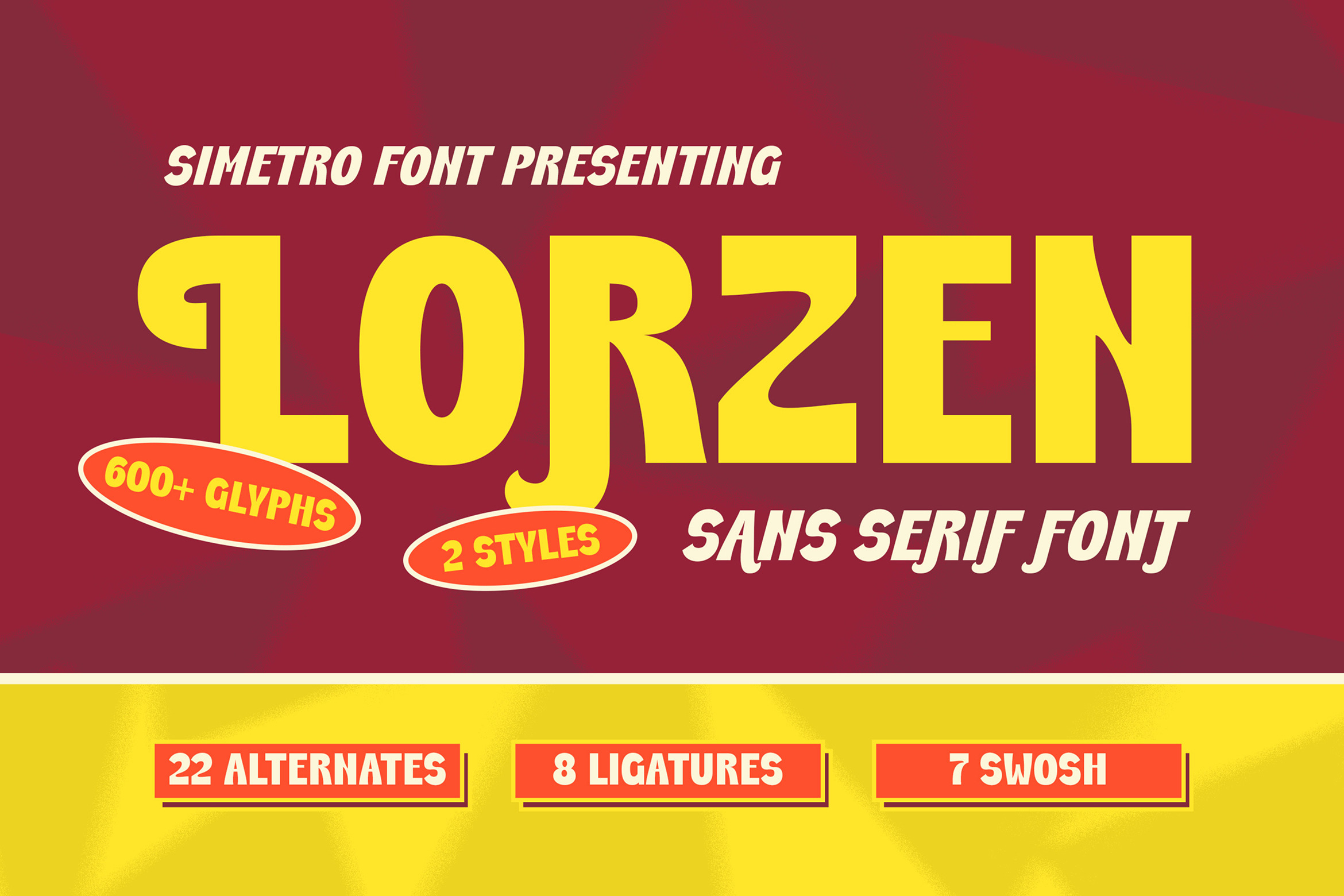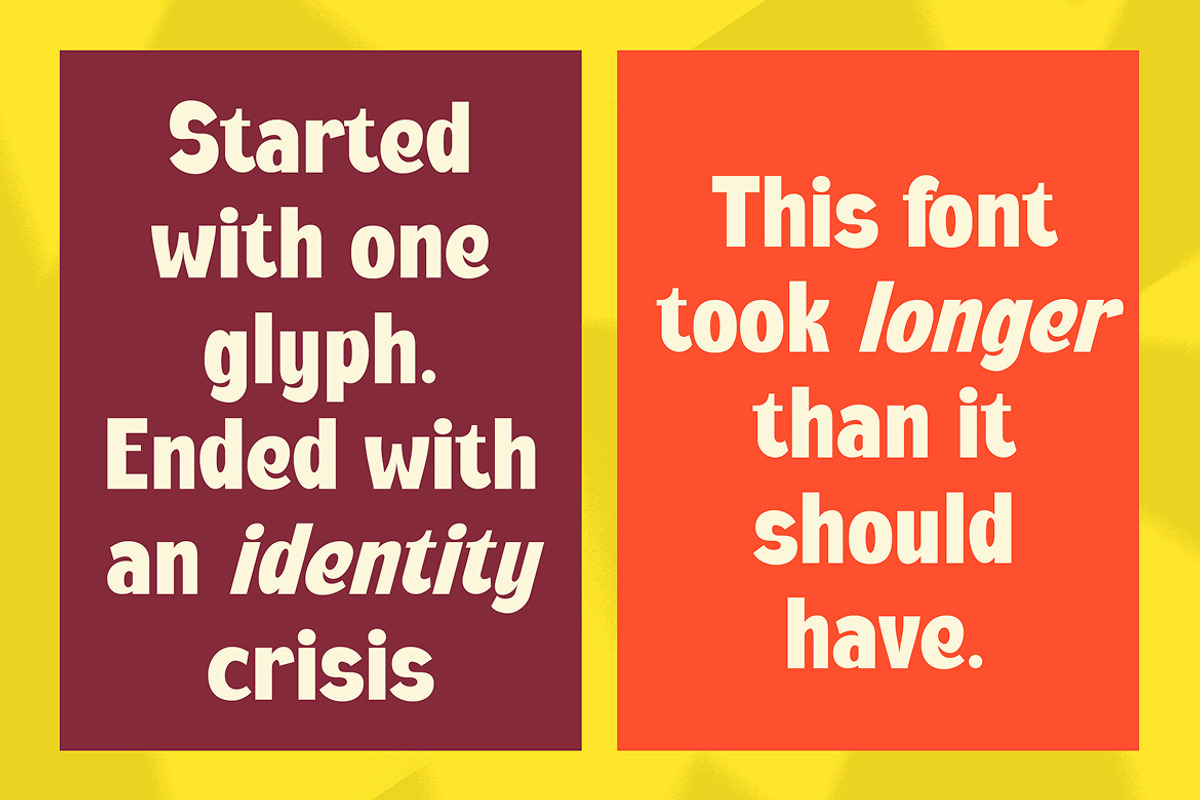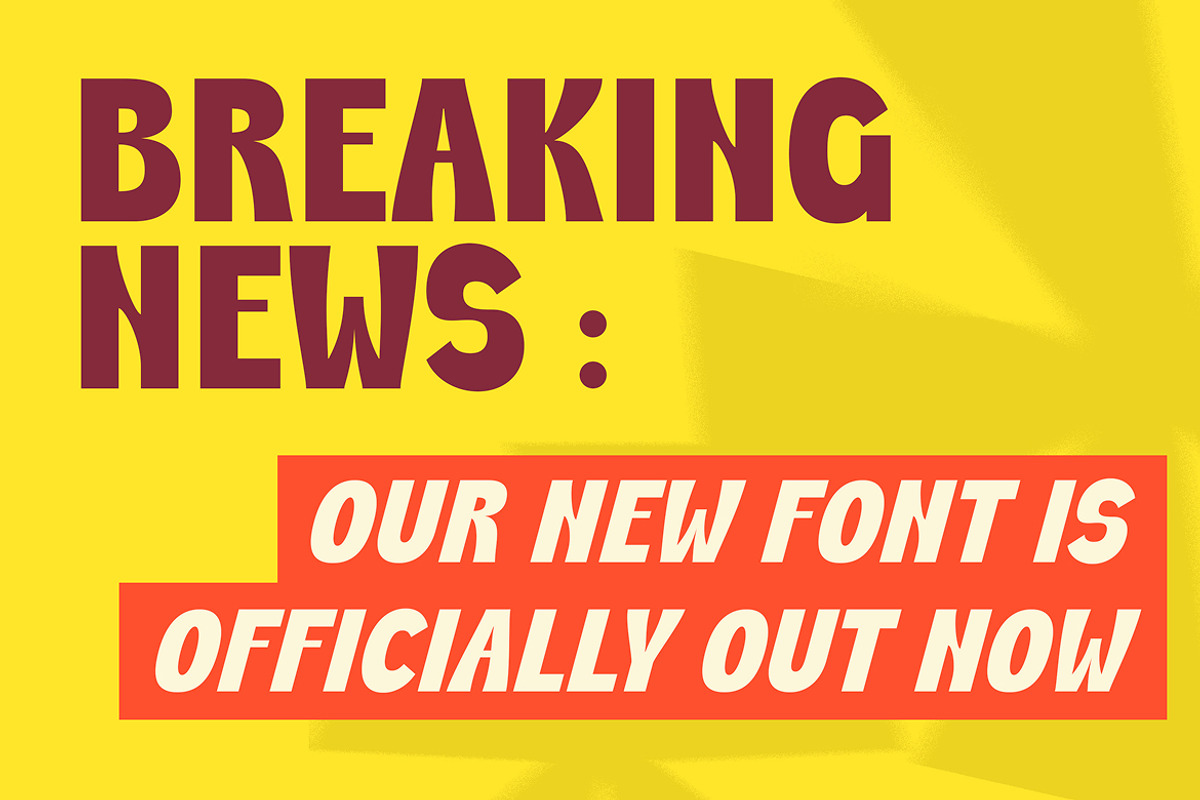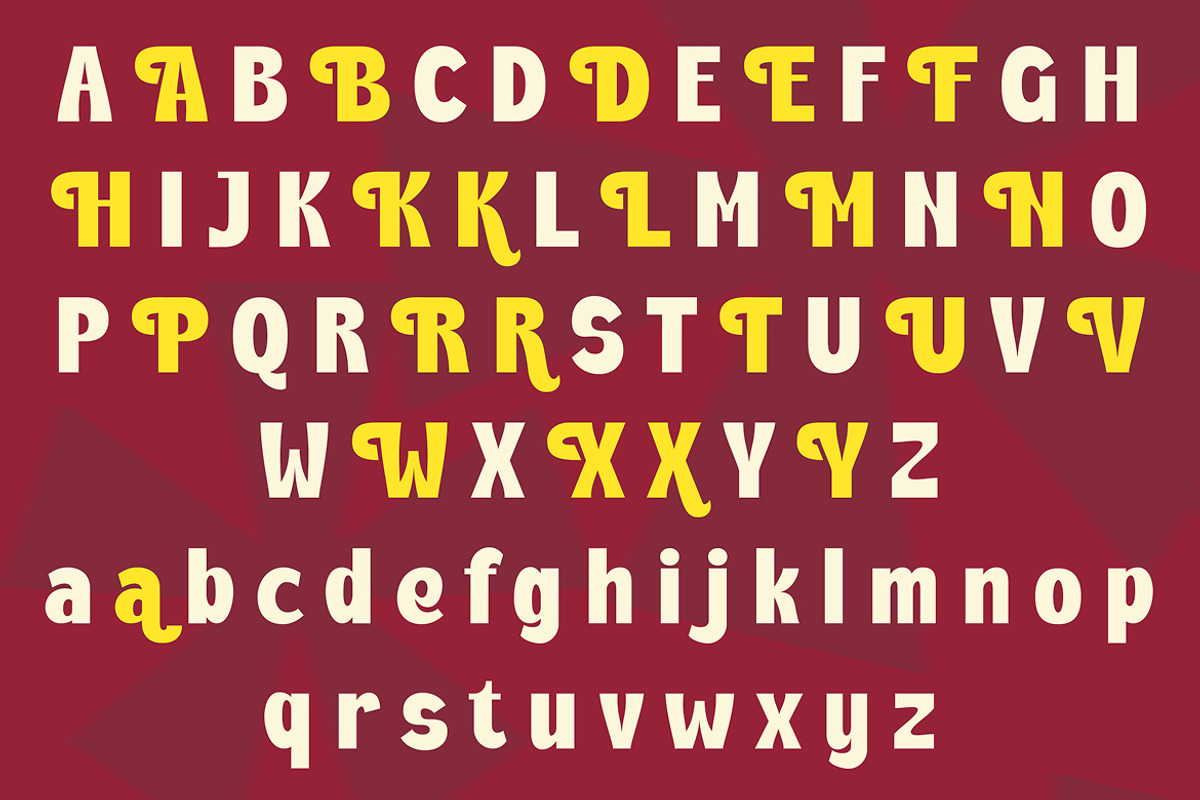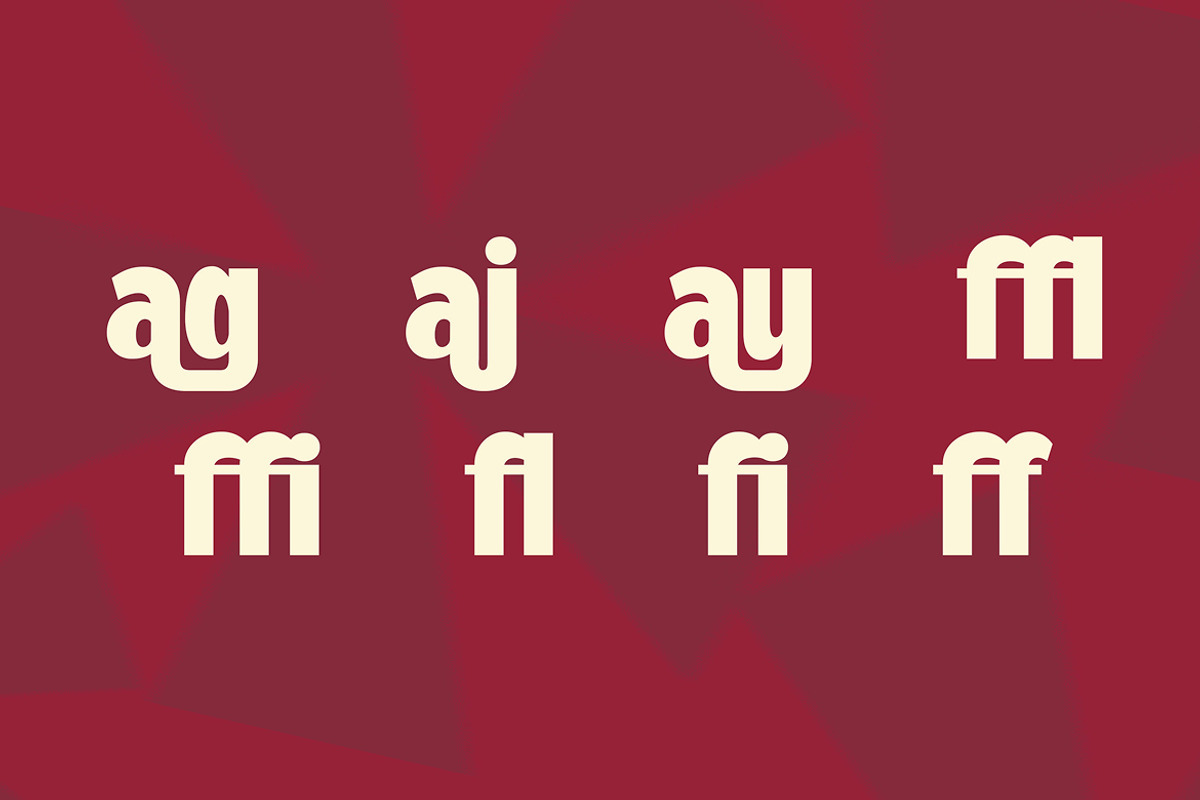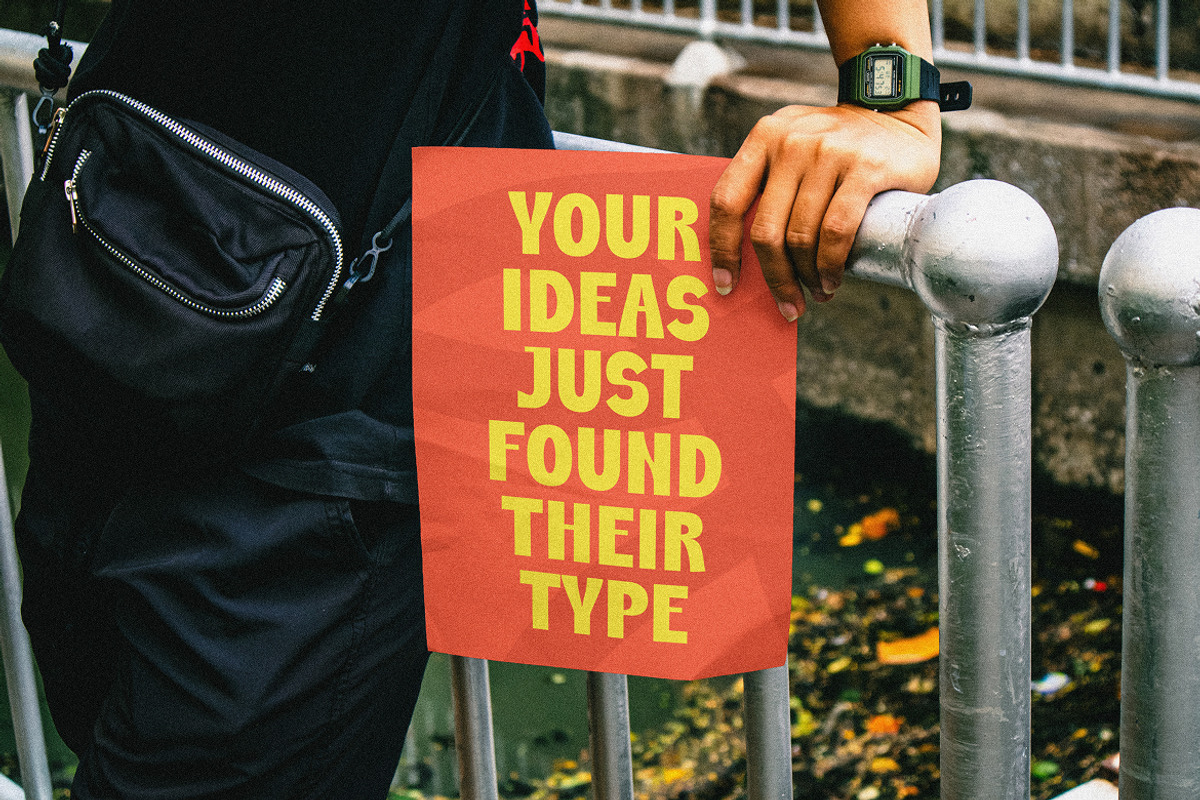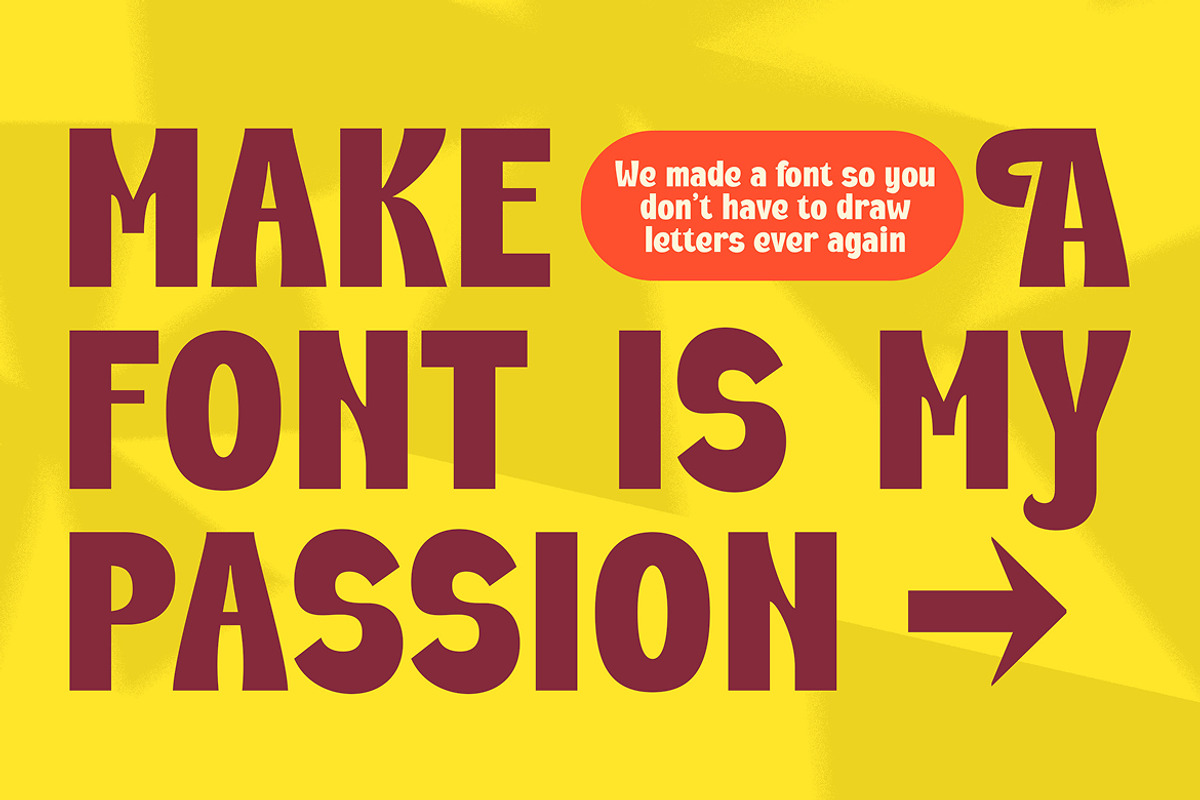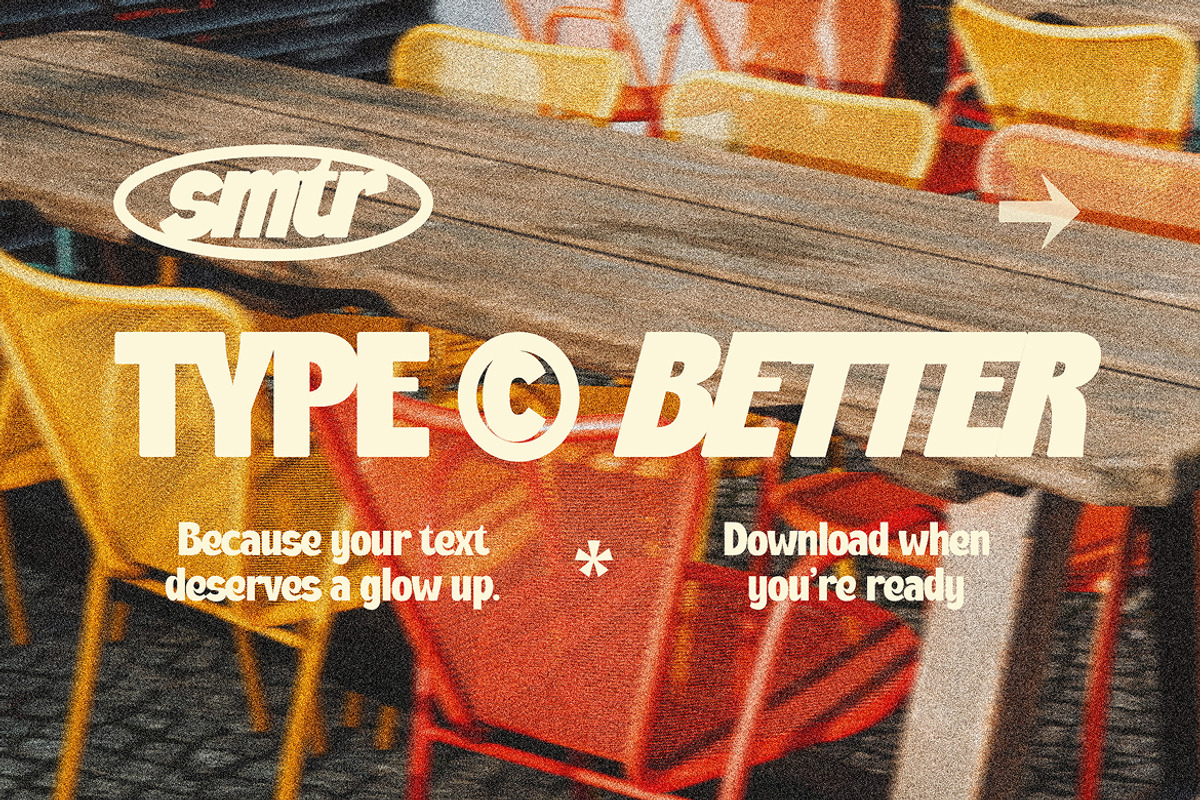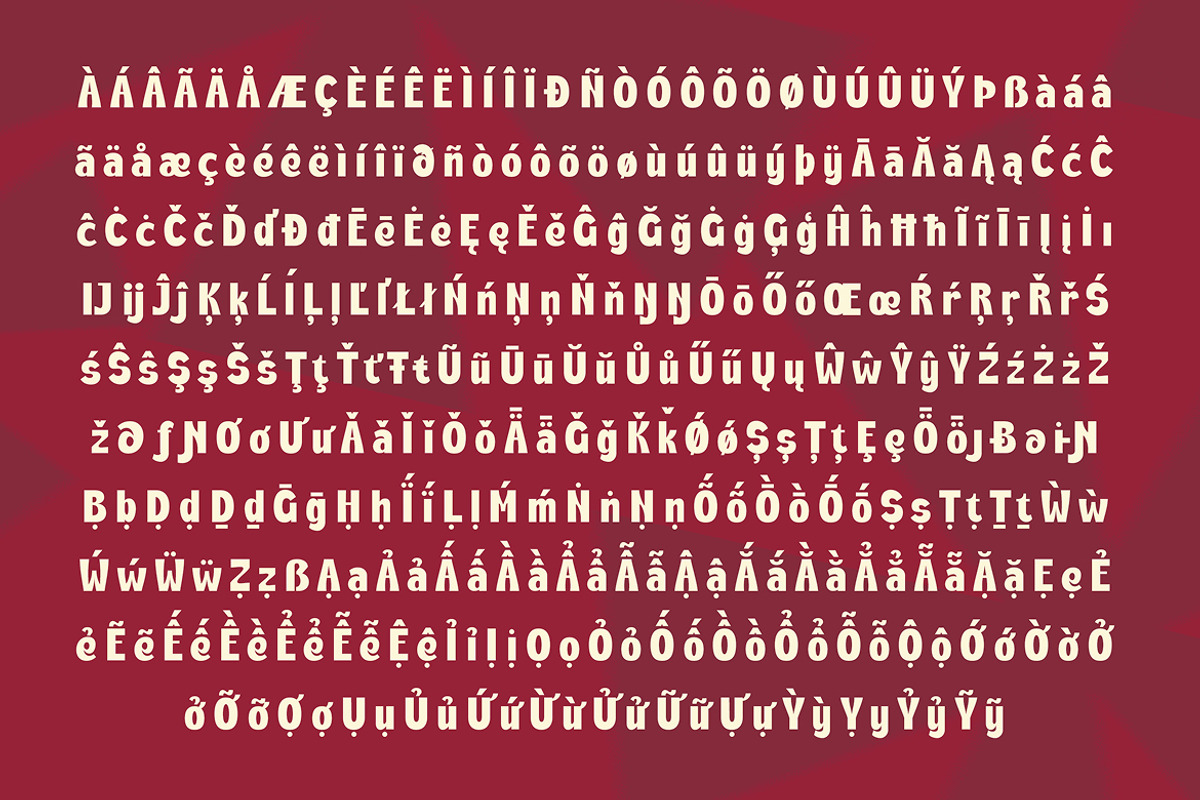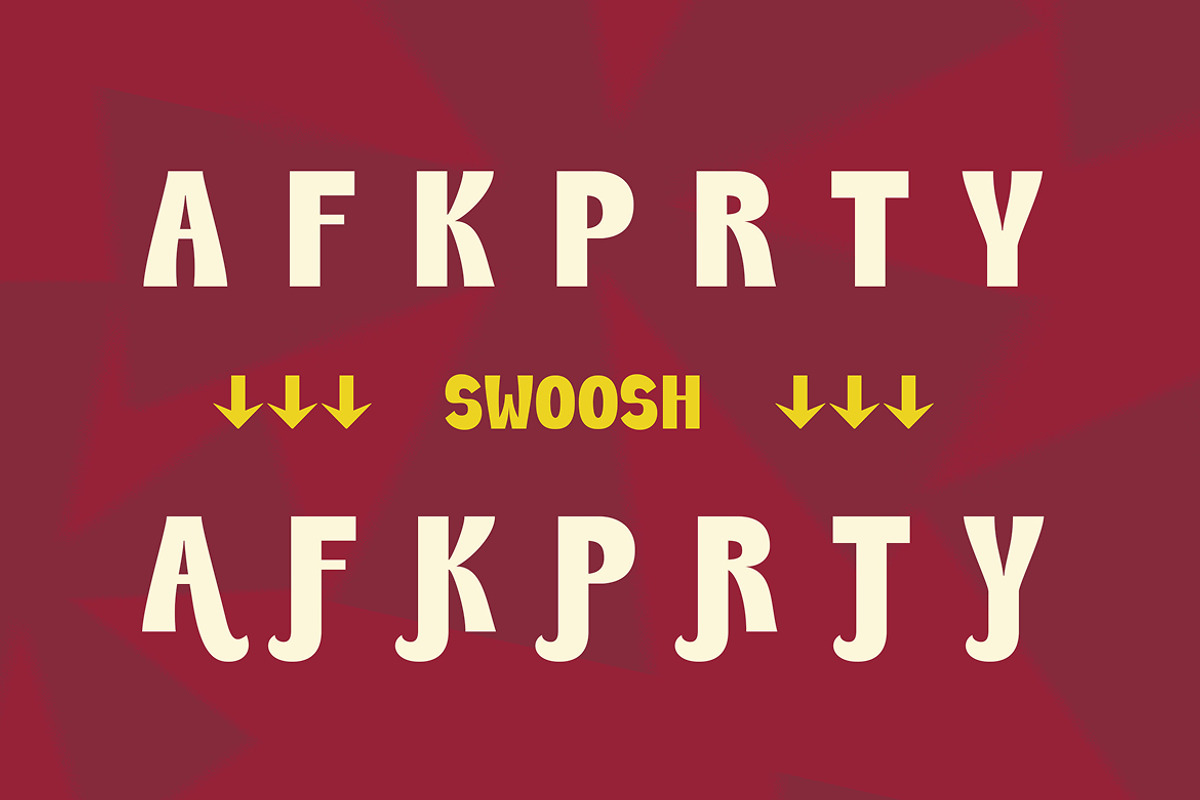
Lorzen - Sans Serif Font Display
Lorzen is a bold geometric display typeface with solid structure and strong vertical emphasis. Designed with clean cuts and minimal detailing, this font delivers a powerful, modern appearance that feels confident, sharp, and highly legible.
The distinctive stroke flow, particularly visible in characters, adds a subtle sense of movement and individuality, making Lorzen ideal for bold statements, experimental branding, posters, album covers, and eye-catching headlines. Its imperfect balance is intentional, giving the typeface a strong personality that feels rebellious and non-uniform.
Lorzen performs best at large sizes, where its bold shapes and consistent weight truly stand out. Whether used in modern branding or experimental layouts, this typeface brings a commanding presence with a clean and professional tone.